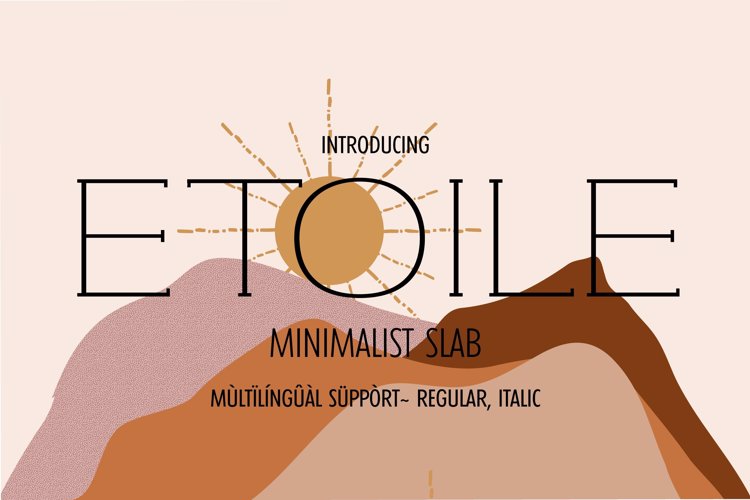
ETOILE Font
ITALIC Regular Style
π¨ Font Name: Etoile by Minimalist Art Studio
π¨ Font Description: Etoile is a minimalist slab serif with multilingual supportβideal for poetic branding, editorial elegance, and nature-inspired packaging.
β Complete Latin set + multilingual diacritics
β Alternates, stylistic sets & ligatures
β Numbers, small caps, and extended punctuation
β Bonus italics and family styles